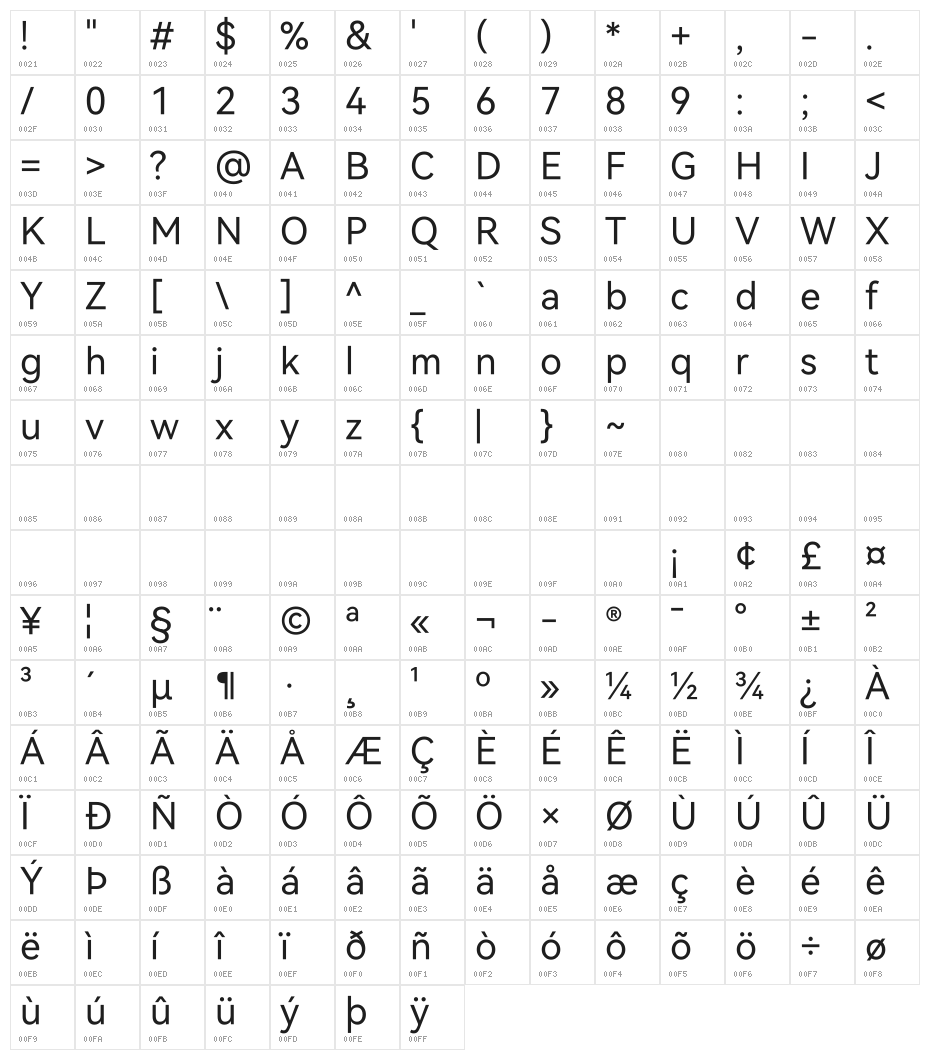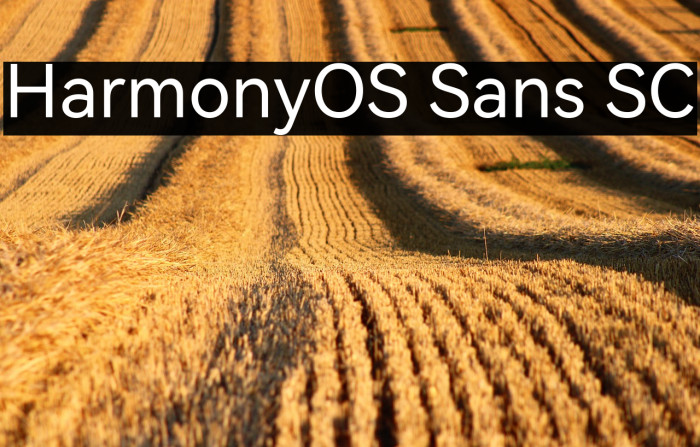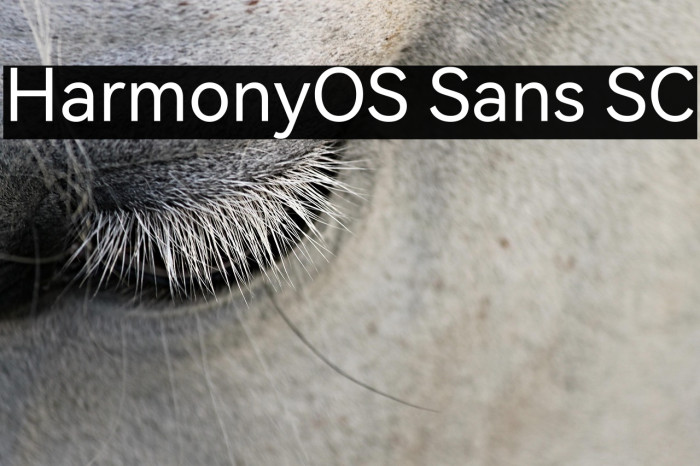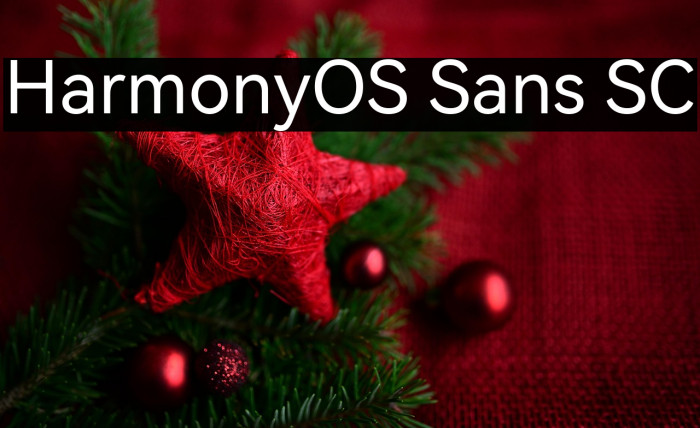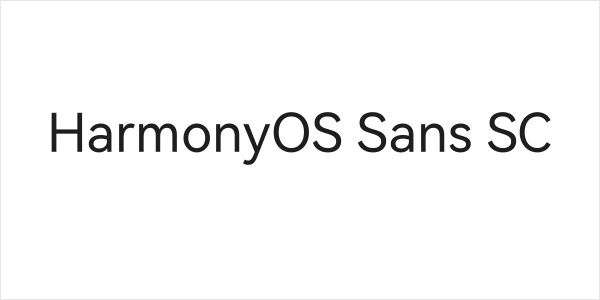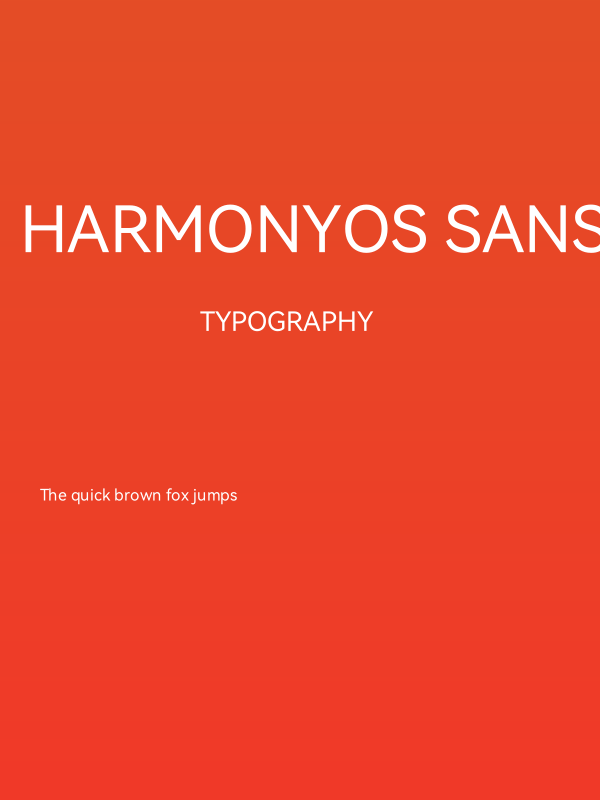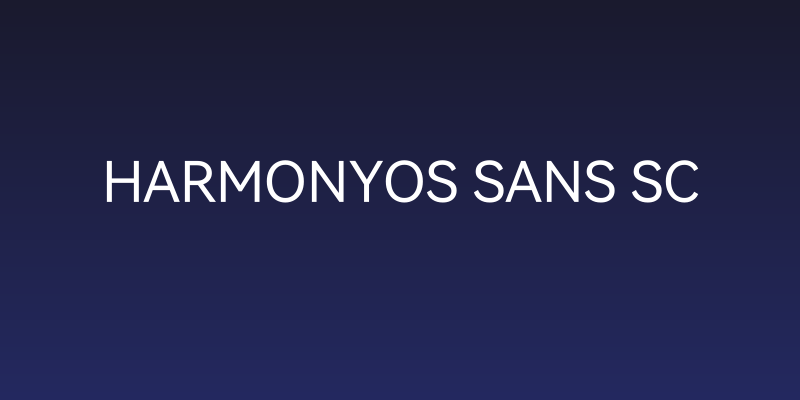
HarmonyOS Sans SC Font
HarmonyOS Sans SC Description
This font features a clean and modern sans-serif design, characterized by its simplicity and readability. The letters are evenly spaced with a consistent stroke width, providing a balanced and harmonious appearance. The uppercase and lowercase letters are well-proportioned, making it suitable for a variety of applications. The numerals are clear and distinct, ensuring legibility in both digital and print formats. Special characters are included, maintaining the font's cohesive style. Overall, this font offers a versatile and contemporary look that is ideal for modern design projects.
| Use Case | Headlines, Body text, Logos |
| Proposed Projects | Ideal for web design, corporate branding, user interfaces, and editorial layouts. |